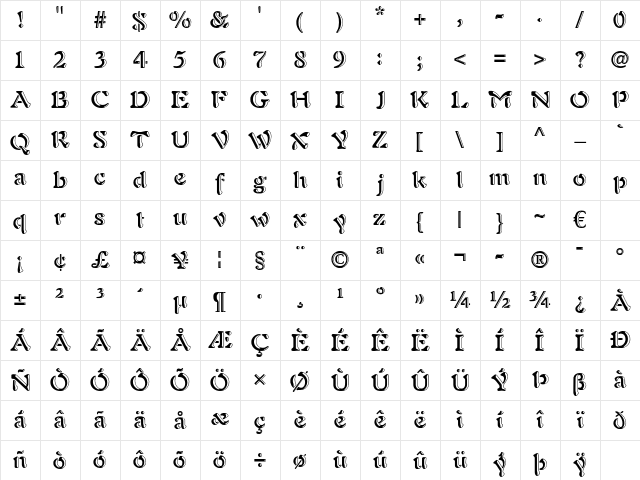
Complete Auriol 'Shaded' Black glyph index. Displaying only characters natively supported by Auriol 'Shaded' Black font.
Auriol 'Shaded' is a composed and adaptable typeface that performs quietly and consistently across a wide range of design contexts.